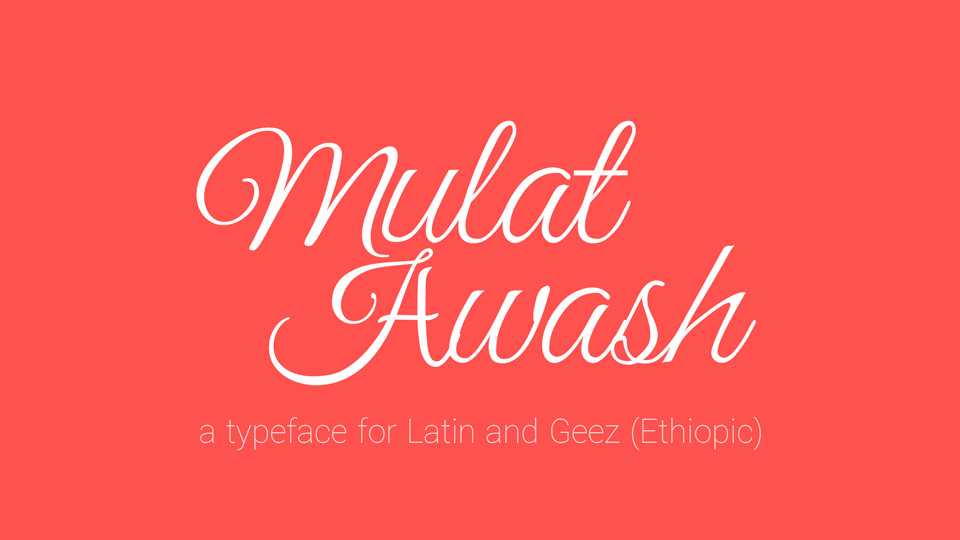
Download Mulat Awash font, a handwritten typeface that supports all languages that use the Latin script and Geez scripts. Mulat Awash suggested for store front signs, cards, letters, social media, etc.
Designer: Fasil Fikreab